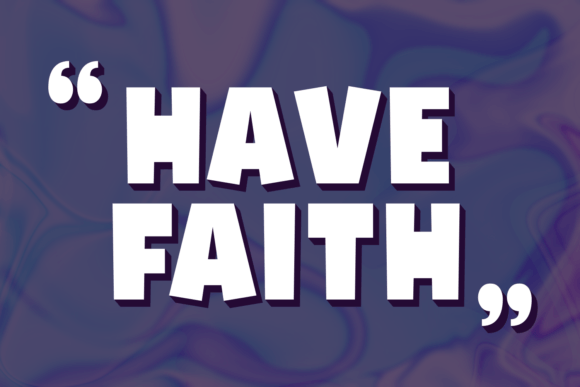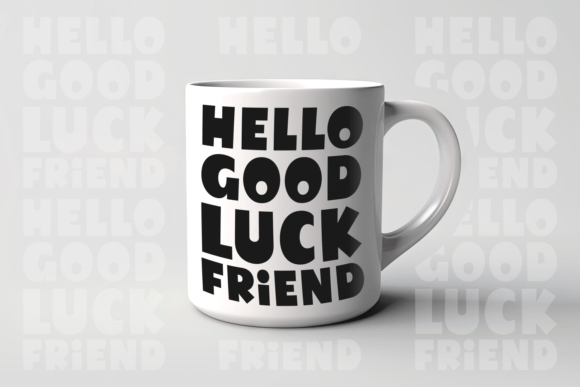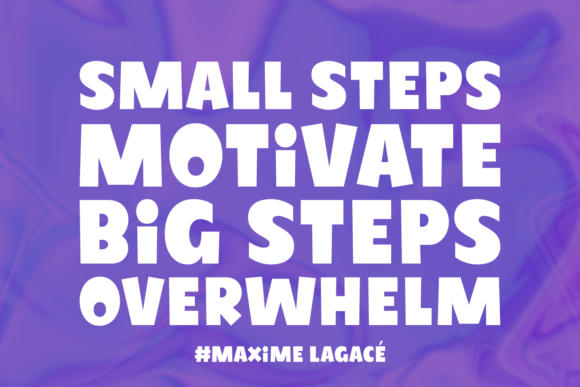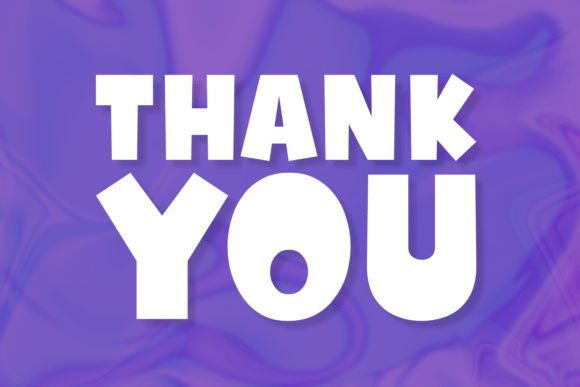
Introducing Blops Liqud: The Ultimate Display Font for Bold and Eye-Catching Designs
Are you tired of using the same old fonts for your design projects? Look no further than Blops Liqud, a bold and chunky display font that’s sure to make a statement. With its playful and chubby appearance, enhanced with a liquid effect, Blops Liqud is the perfect choice for designers and crafters looking to add a touch of fun and vibrancy to their work.
The Characteristics of Blops Liqud
Blops Liqud is a one-of-a-kind font that’s characterized by its bold and chunky design. The font features a playful and chubby appearance, with a liquid effect that gives it a unique and eye-catching look. The letters are rounded and smooth, with a subtle curvature that adds to the font’s friendly and approachable feel.
Despite its bold and chunky design, Blops Liqud is surprisingly versatile and adaptable to a variety of design contexts. The font can be used for headlines, posters, logos, branding materials, and more, adding a touch of personality and flair to any project.
The Benefits of Using Blops Liqud
So why choose Blops Liqud for your next design project? Here are just a few benefits of using this amazing font:
- Instant attention-grabber: With its bold and chunky design, Blops Liqud is sure to grab attention and make a statement.
- Versatile and adaptable: Whether you’re designing a headline, poster, logo, or branding material, Blops Liqud is the perfect choice.
- Fun and vibrant: The font’s playful and chubby appearance, combined with its liquid effect, adds a touch of fun and vibrancy to any project.
- Easy to read: Despite its bold design, Blops Liqud is easy to read, even at smaller sizes.
How to Use Blops Liqud in Your Design Projects
Blops Liqud is a versatile font that can be used in a variety of design contexts. Here are a few ideas to get you started:
- Headlines and titles: Use Blops Liqud to create bold and eye-catching headlines and titles that grab attention.
- Posters and flyers: Add a touch of fun and vibrancy to your posters and flyers with Blops Liqud.
- Logos and branding materials: Use Blops Liqud to create unique and memorable logos and branding materials.
- Social media graphics: Add a touch of personality and flair to your social media graphics with Blops Liqud.
Tips and Tricks for Getting the Most Out of Blops Liqud
Here are a few tips and tricks for getting the most out of Blops Liqud:
- Experiment with colors: Try pairing Blops Liqud with different colors to create a unique and eye-catching look.
- Play with sizes: Experiment with different font sizes to create visual interest and hierarchy.
- Combine with other fonts: Try pairing Blops Liqud with other fonts to create a unique and interesting typographic combination.
In conclusion, Blops Liqud is a bold and chunky display font that’s perfect for designers and crafters looking to add a touch of fun and vibrancy to their work. With its playful and chubby appearance, enhanced with a liquid effect, Blops Liqud is sure to make a statement and grab attention. Whether you’re designing a headline, poster, logo, or branding material, Blops Liqud is the perfect choice.